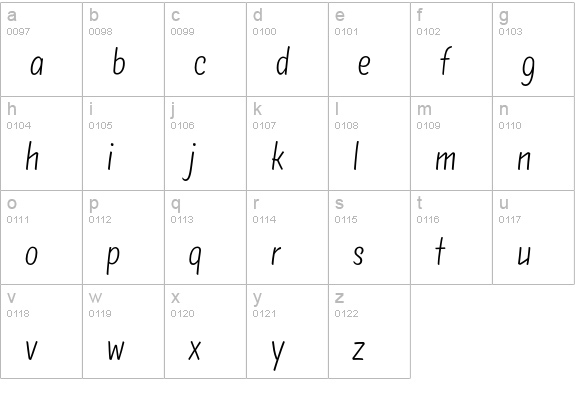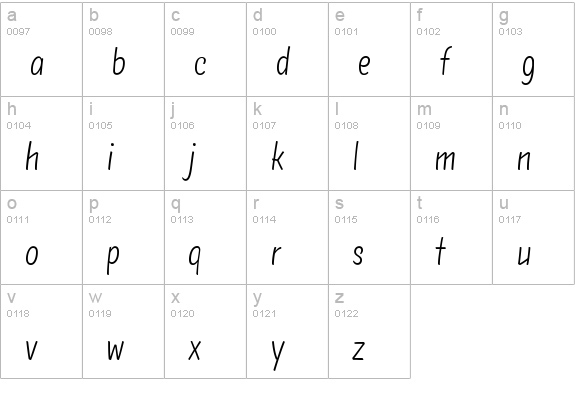
TT Masters Condensed Light Font Details
TT Masters Condensed Light is a refined, elegant, condensed-width variant in the TT typeface family \xE2\x80\x94 well suited to elegant body text, refined sub-headings, and luxury branding.
TT Masters Condensed Light is a modern and elegant sans-serif font that exudes sophistication and style. With its clean lines and sleek design, this font is perfect for a wide range of design projects, from branding to editorial design. The condensed style adds a touch of uniqueness and flair, making it stand out from other fonts in its category. What sets TT Masters Condensed Light apart is not only its aesthetic appeal but also its versatility. Whether used for headlines, body text, or even logos, this font delivers a polished and professional look that is sure to make a statement. Best of all, TT Masters Condensed Light is available for free download at FontsMarket.com. Now you can elevate your designs without breaking the bank. Don't miss out on this opportunity to add a touch of class to your projects with TT Masters Condensed Light.